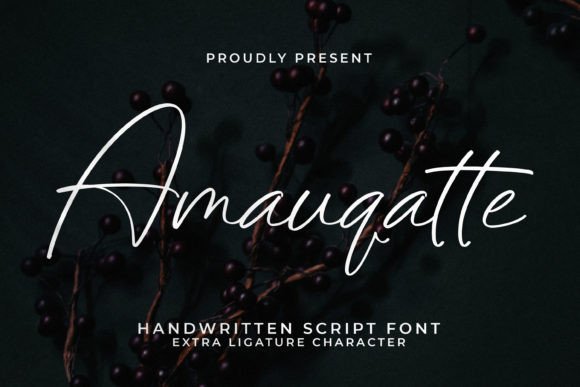
Venture into the world of elegance and sophistication with Amauqatte Font, where calligraphy meets modern aesthetics. This exquisite script font, crafted by the skilled hands of integritypestudio, is a testament to the beauty and power of handwritten artistry. Immerse yourself in the enchanting world of Amauqatte, where every stroke and swirl speaks volumes.
Unleash your creativity and let Amauqatte guide you towards timeless designs that captivate and inspire, whether you're a seasoned professional or just starting your design journey. Elevate your projects and leave a lasting impression with this stunning font that breathes life into your words.
Picture the allure of Amauqatte adorning your logos, branding projects, homeware designs, product packaging, and more. Its versatility knows no bounds, making it the perfect companion for mugs, quotes, posters, shopping bags, t-shirts, book covers, business cards, invitation cards, and greeting cards. Amauqatte's presence adds a touch of luxury and sophistication to every creation, leaving an unforgettable mark on your audience.
Dive into the world of Amauqatte and unlock endless possibilities for your photography, watermarks, special events, and all your other creative endeavors that demand a premium touch. This font is not just a tool; it's an extension of your artistry, allowing you to express yourself with grace and finesse.
Embrace the allure of Amauqatte and elevate your designs to new heights. It's the perfect harmony of classic and modern, timeless and trendy, sure to make a statement in the world of design. Experience the magic of Amauqatte and let your creativity flourish like never before.